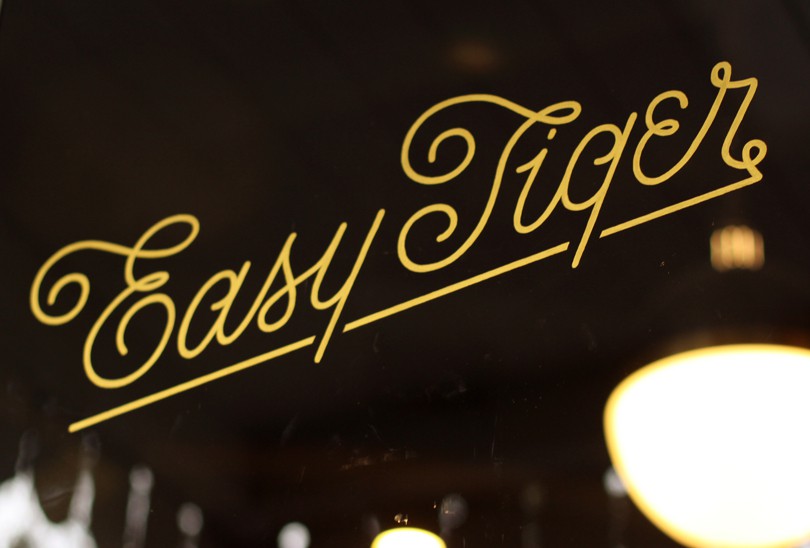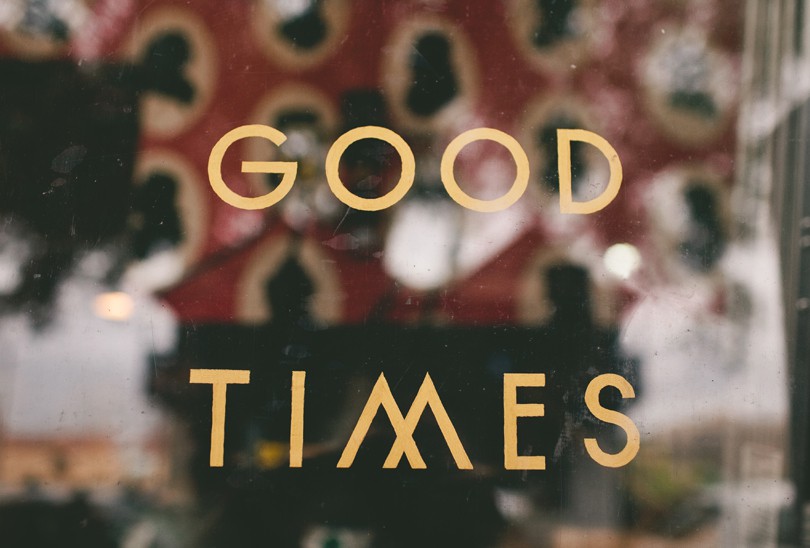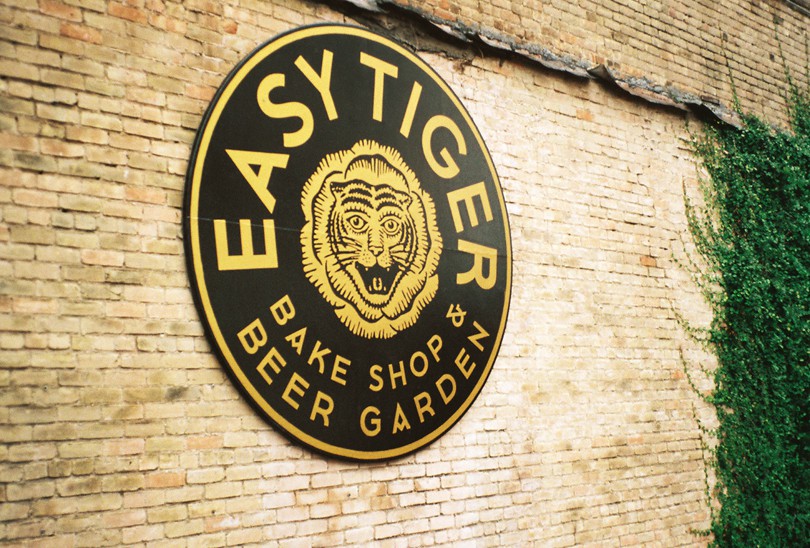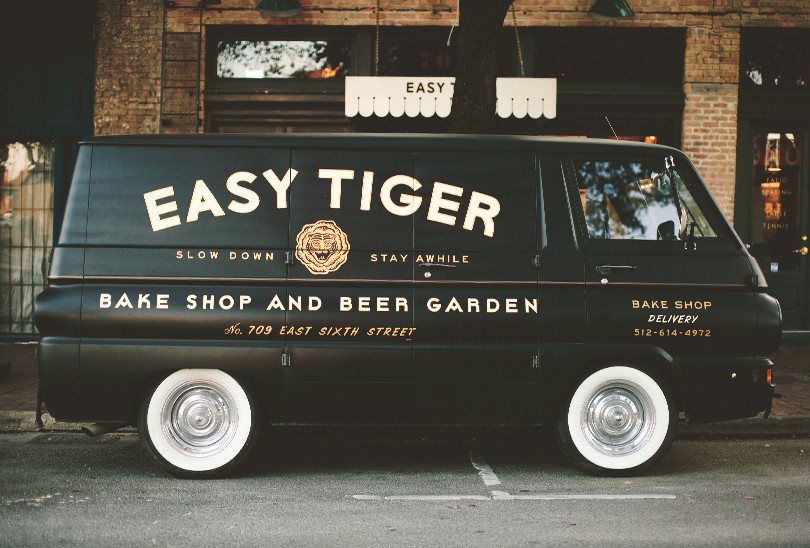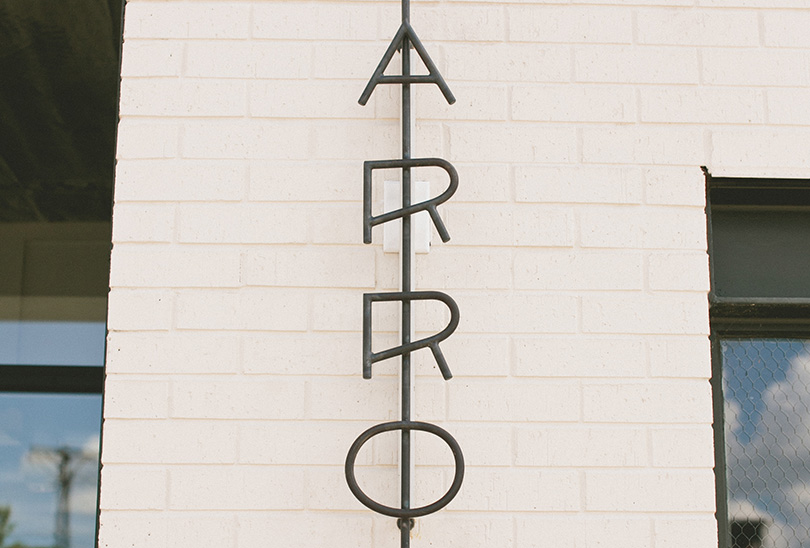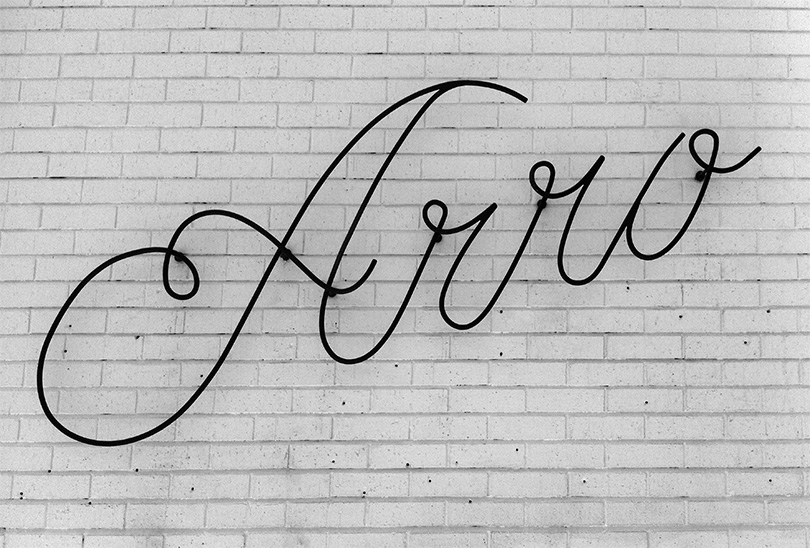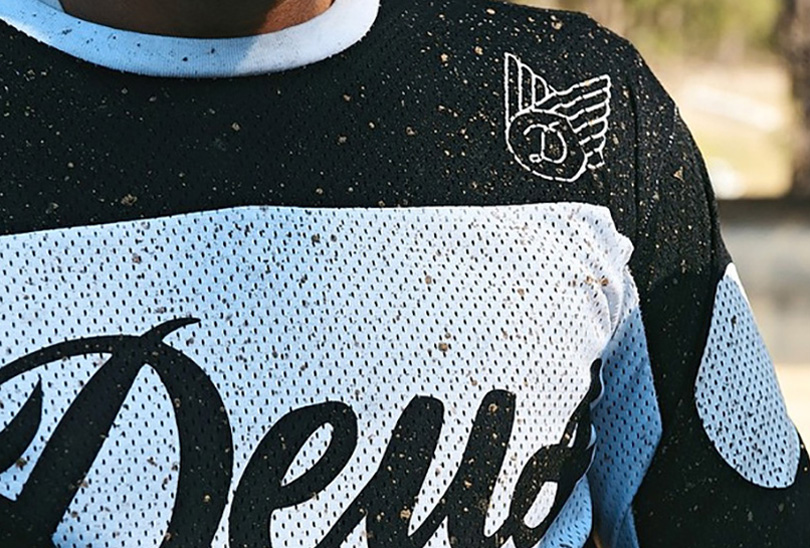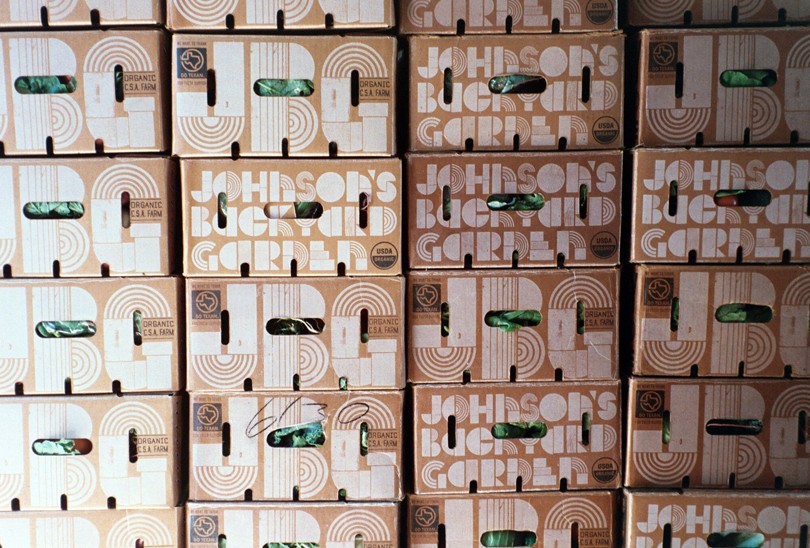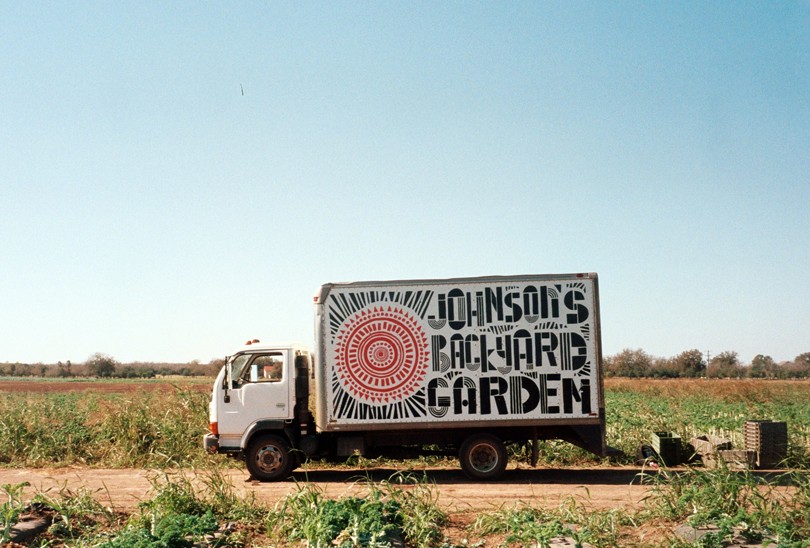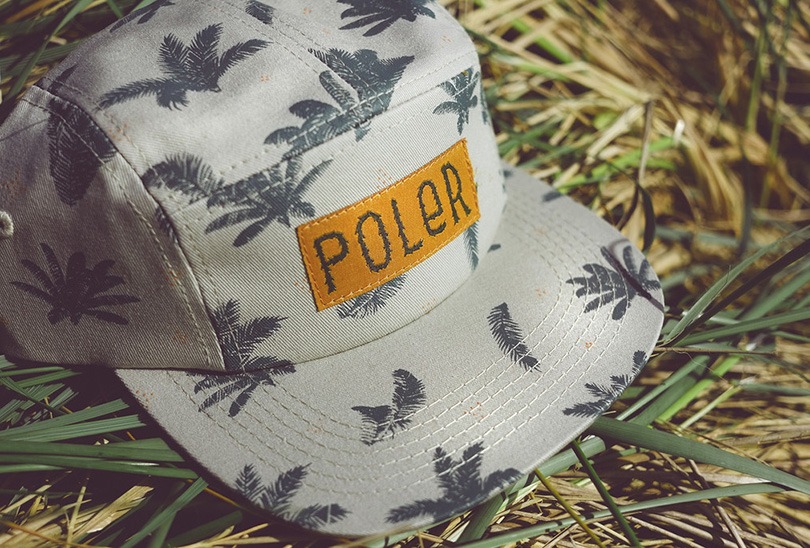
The weathered, vintage typography of LAND is as old as new
Inspired by art and design that existed long before they did, LAND is a duet that normally would be referred to as “graphic designers” but this is a term they despise. “We’re just two dudes trying to create art and design that will last and try to blur the line between the two. We’re just two kids that grew up in small towns in Texas and stumbled across design through skateboarding, BMX, art and music” say Caleb Owen Everitt and Ryan Rhodes. Heavily inspired by more spiritual subjects such as life and death and the symbolism that comes from thinking about it all, they love creating because they like to feel naive.
Based in Austin, Texas, LAND work in an old brick warehouse shop on the east side of town near the tracks and from there they enter their “journey through experimentation”, a notion that is evident throughout their portfolio. The two met years ago while working for the same agency in their city and since sharing a lot of enthusiasm for similar things they decided to push each other with encouragement and positive distractions. Fortunate enough to work on projects that they can personally identify, LAND like to blend the lines between art and design.
“Most of the type we create is hand done or inspired by historical typography”
With an impressive list of clients (Hufnagel Cycles, Patagonia, and Deus Ex Machina to name a few) Everitt and Rhodes need no longer draw naked ladies for a buck or make zines or “obsessively draw and redraw skateboarding and BMX logos on desks and trapper keepers”. “Most of the type we create is hand done or inspired by historical typography” they told to Juxtapoz’s Brent Gentile. “From old books and signs to hobo scribbles, type that was created by a hand or a machine just feels better than a more modern, digital font. It’s more fun to create something custom, or that feels like it came from a real place before you and I were born and will be here after we’re dead.”
“From old books and signs to hobo scribbles, type that was created by a hand or a machine just feels better than a more modern, digital font”
With the pen and the paper being the most used medium at their studio, LAND prefer to use their hands whenever they can. Drawing inspiration from things created in decades and centuries that are a long time gone, for the last couple of years they have been referencing “Francis Picabia, Salvador Dali’s preliminary sketches, cave painting, religious art, early American Type Founders work, outsider art, cattle brands, concrete stamps, old makers marks, masonic art and nature.” Simple, honest and unforced LAND want to keep themselves inspired and get better everyday. All in the palm of their hands.